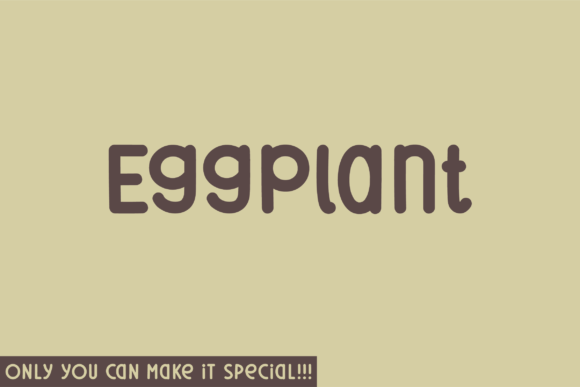
Discover Eggplant, a naturally stunning sans serif font that's bound to capactivate your creative vision. Conceived by the esteemed Bie, this font is a true marvel of font engineering. Its creation process is nothing short of remarkable - crafted without modifying a single node in each character's DNA, bestowing it with an allure that's both distinctive and compelling.
Eggplant, with its inherent elegance, is an ideal companion for a diversity of creative endeavors. Whether you're seeking to craft alluring quotes, jot down your thoughts in style, design eye-caching tees, or bring life to your product designs, Eggplant is your font of choice. Prepare to be captivated as you witness your creative ideas transformed into visually stunning realities.
Beyond its aesthetic appeal, Eggplant possesses a hidden power - the ability to unlock an enthralling digital experience. Its optimized structure ensures a seamless flow on Instagram, making it not just a font but a digital tool that enhances your online presence. Share your visions, engage with your audience, and establish a compelling online identity.
Embrace Eggplant, and venture into a world of creative possibilities that will leave you inspired. With this exceptional font, you possess the key to unlock a world of visual wonder. Don't let this opportunity slip away - succumb to the allure of Eggplant today and watch your creativity blossom.